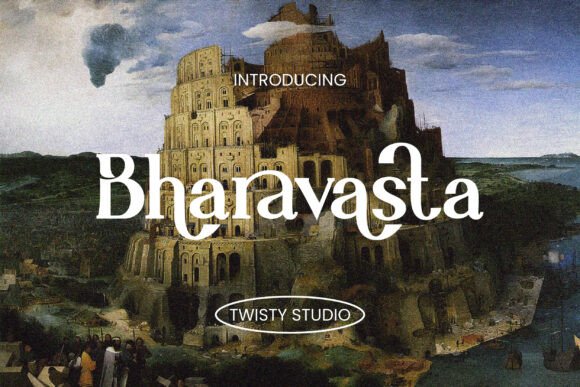
The Retro Charm of Bharavasta Font: A Designer’s Delight
I still remember the design project that led me to discover the amazing Bharavasta font. I was working on a vintage-themed poster for a client’s retro-style cafe, and I was struggling to find the perfect font that would capture the essence of a bygone era. The client wanted something that would transport their customers back in time, but I was stuck with fonts that either looked too modern or too over-the-top. That’s when I stumbled upon Bharavasta, and it was love at first sight! 💕
As a designer, I was immediately drawn to Bharavasta’s unique blend of retro flair and sophistication. Here are a few things that I absolutely love about this font:
• ✨ Retro charm: Bharavasta’s serif design and classic details evoke a timeless charm that’s perfect for vintage-themed projects.
• ✅ Versatility: This font is incredibly versatile and can be used for a wide range of projects, from branding and posters to apparel prints and editorial layouts.
• 💯 Legibility: Despite its ornate details, Bharavasta remains highly legible, even at smaller font sizes.
Of course, no font is perfect, and Bharavasta does have a few quirks:
• 🤔 Limited use of OpenType features: While Bharavasta does offer some basic OpenType features, it’s not as extensive as some other fonts on the market.
• ⚠️ May require manual kerning: Depending on the specific project, you may need to manually adjust the kerning to achieve optimal results.
The Story Behind Bharavasta: Designer Inspiration
According to its creators, Bharavasta was inspired by the classic typography of the 1950s and 60s. The designers wanted to create a font that would capture the essence of vintage design while still feeling modern and fresh. They drew inspiration from classic serif fonts, adding their own unique twist to create a truly distinctive look.
What type of projects is Bharavasta best suited for? Bharavasta is perfect for projects that need a touch of old-school sophistication, such as branding, posters, vintage-themed designs, apparel prints, and editorial layouts.
Does Bharavasta support OpenType features? Yes, Bharavasta supports some basic OpenType features, including stylistic alternates and ligatures.